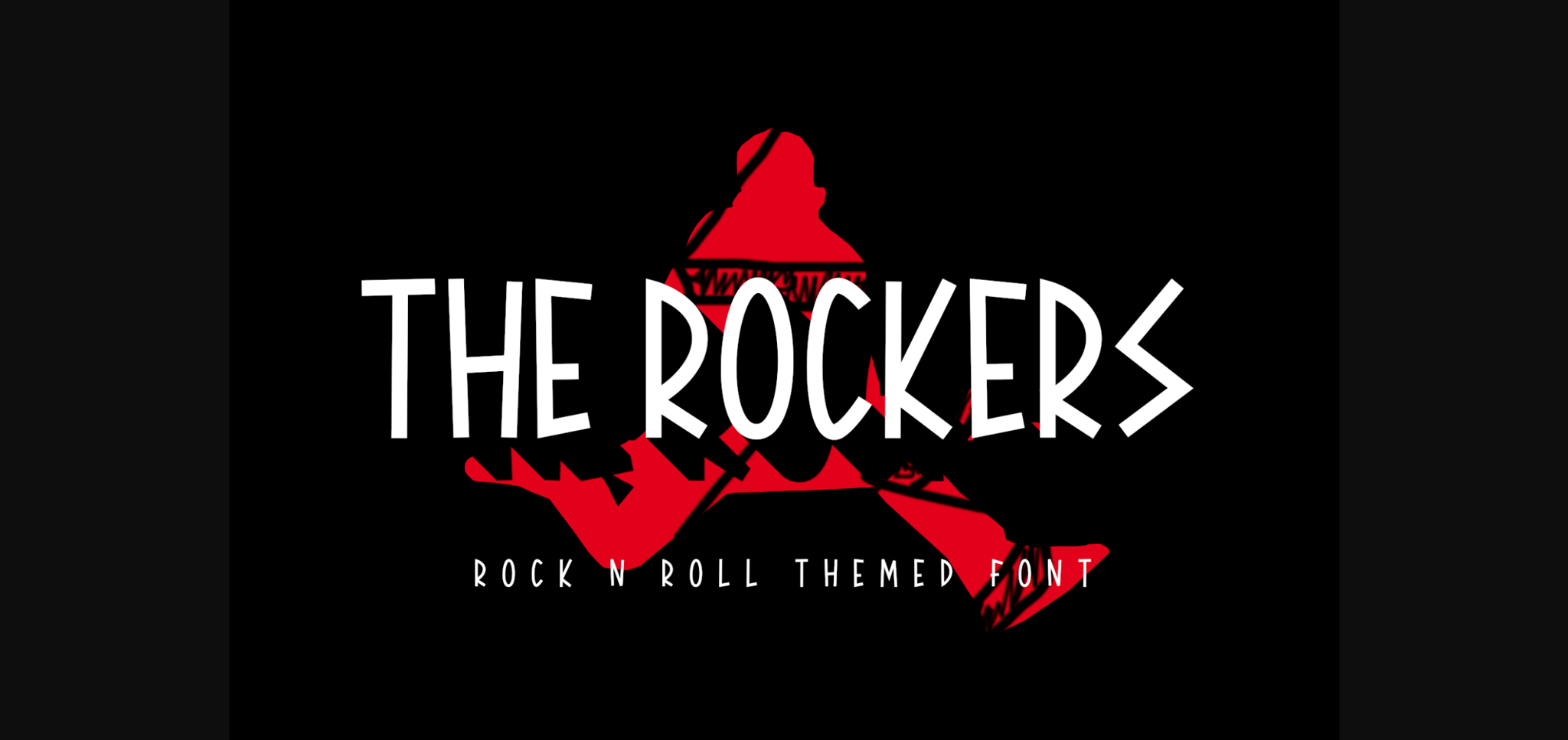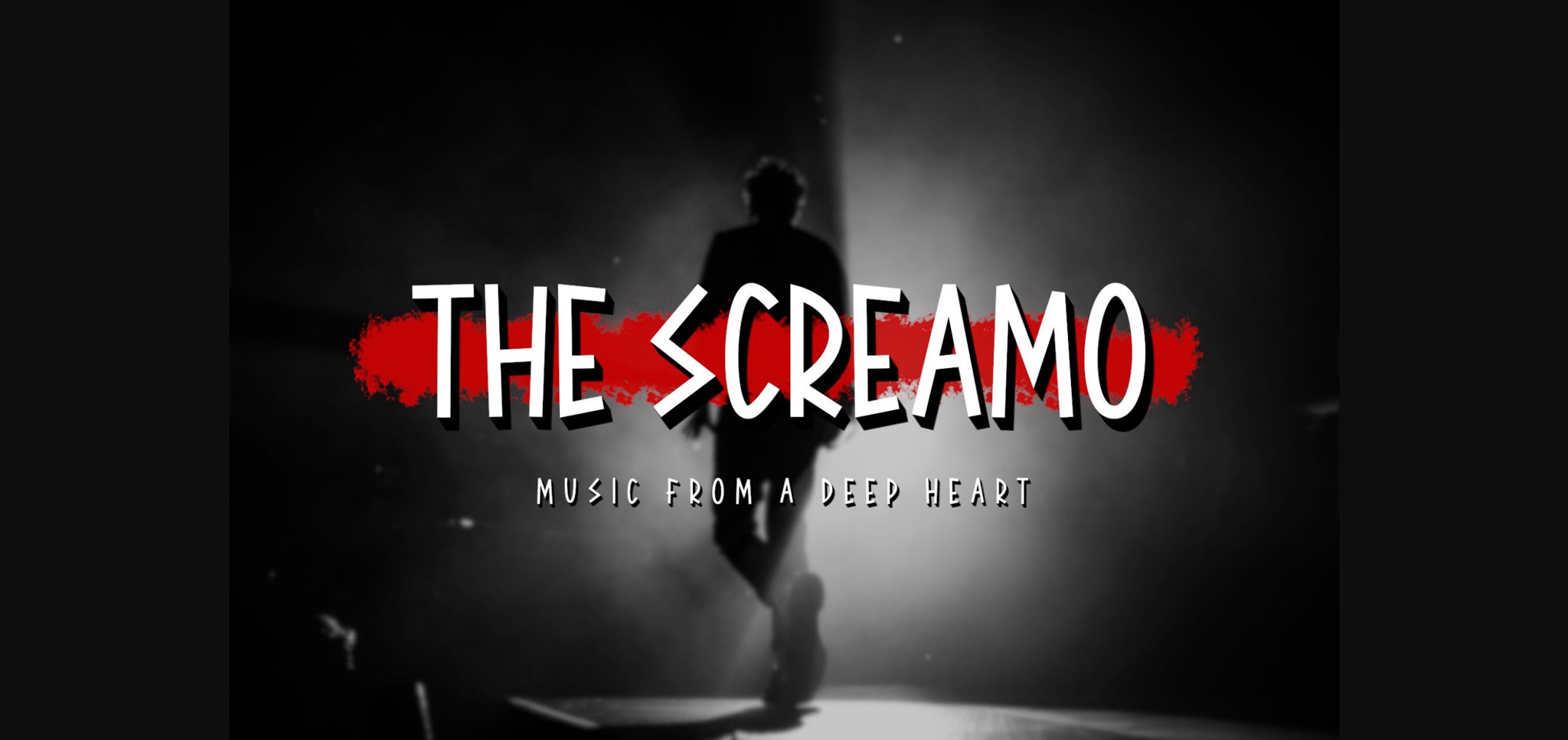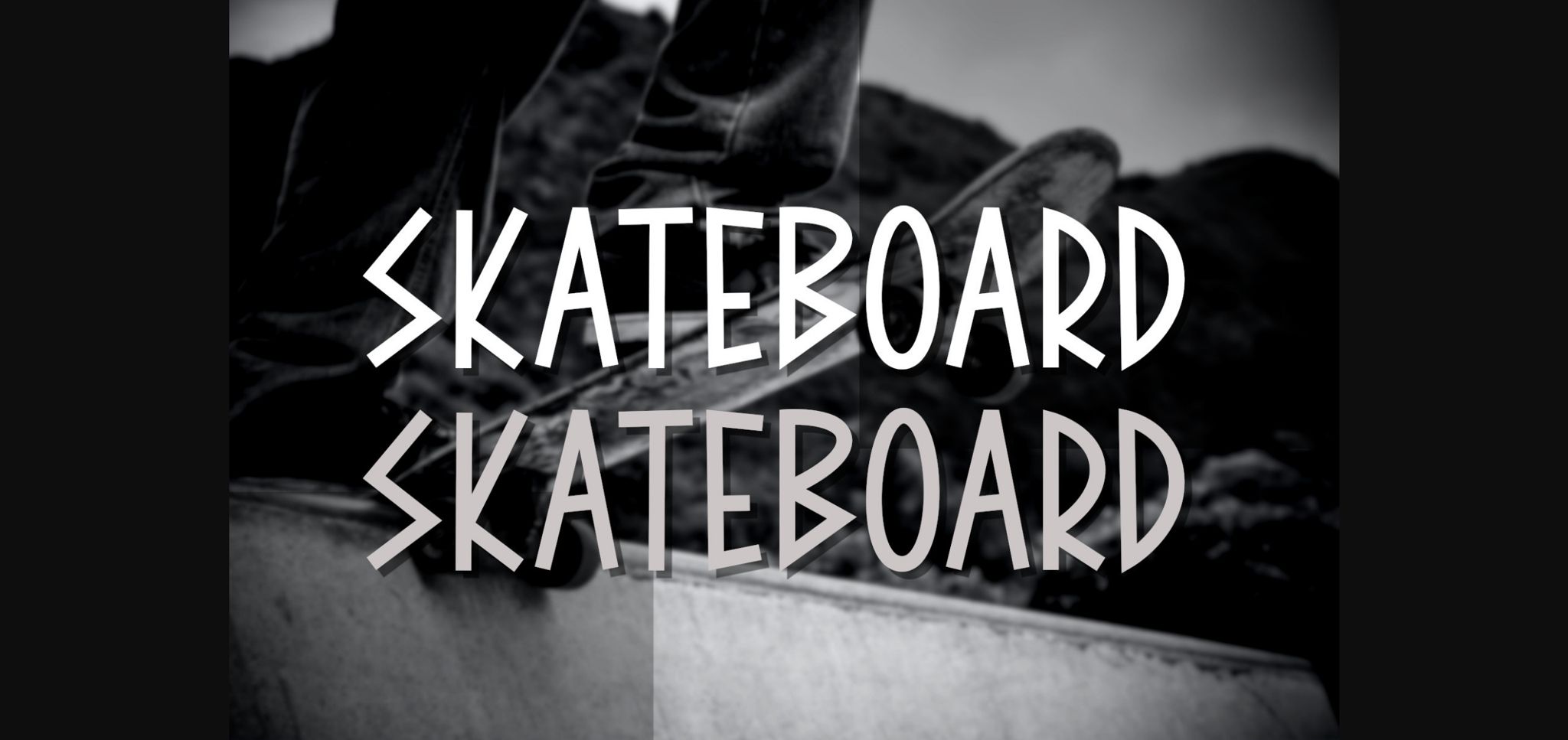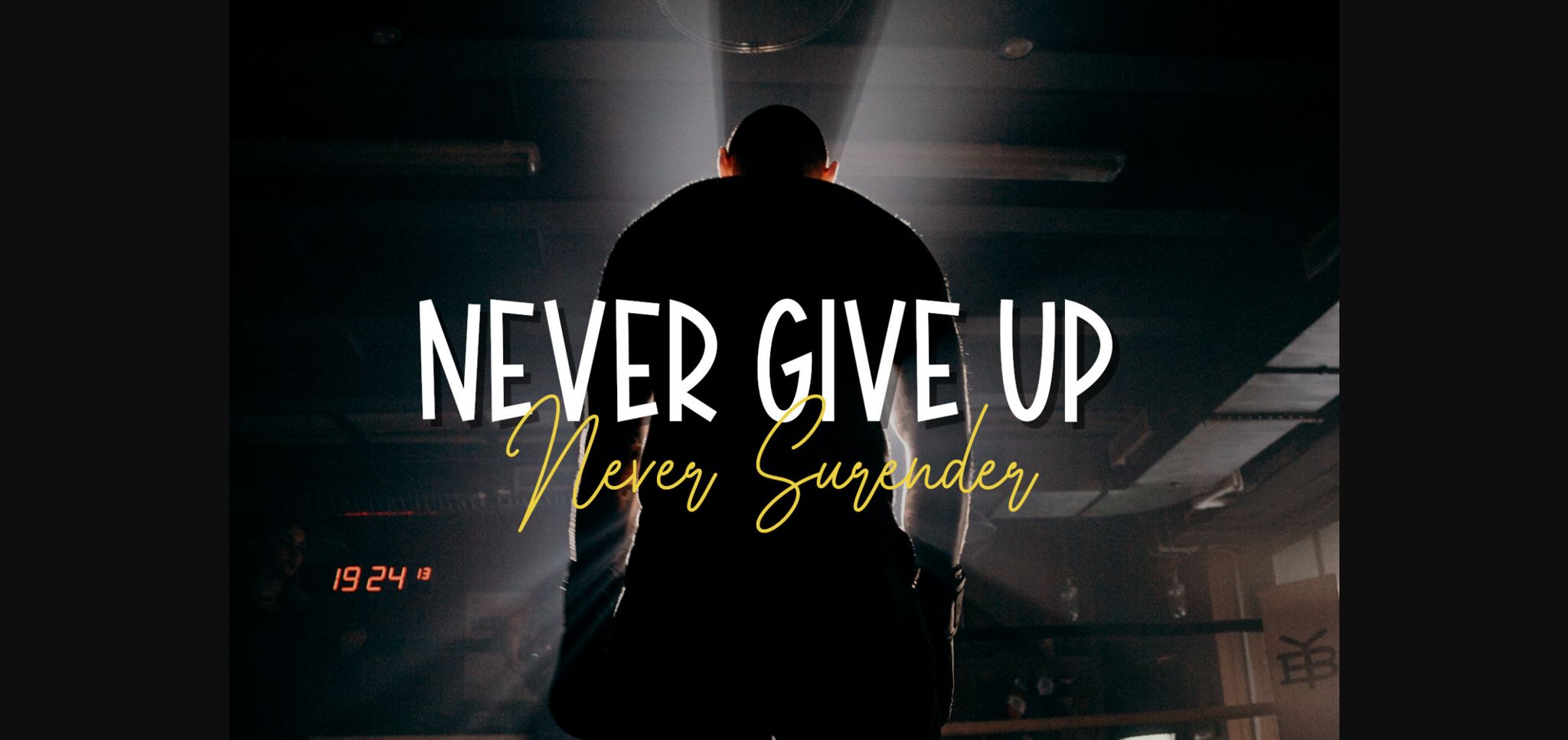
About The Rockers Font
The Rockers font is a display font with a rock n roll theme with a single line and a sharp shape.
The Rockers is perfect for rock music-themed designs, pop art designs, sports posters, logotypes, and many more.